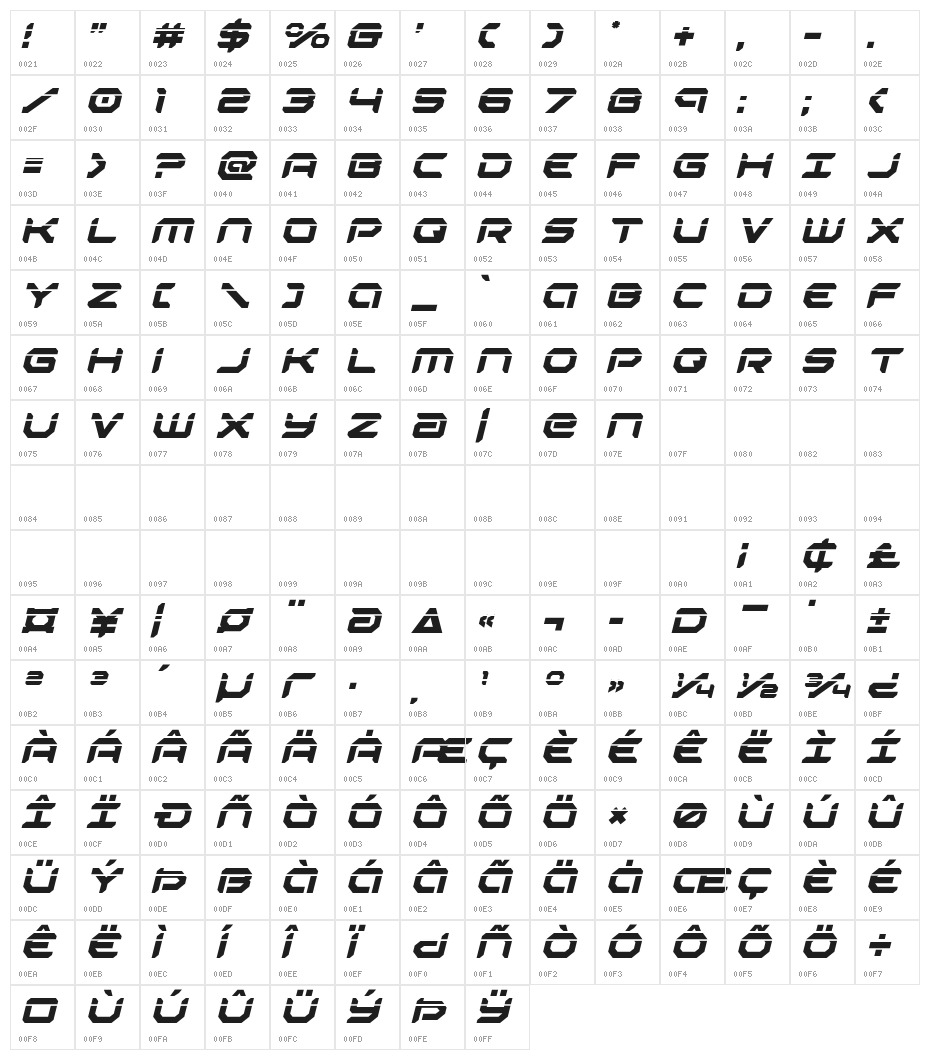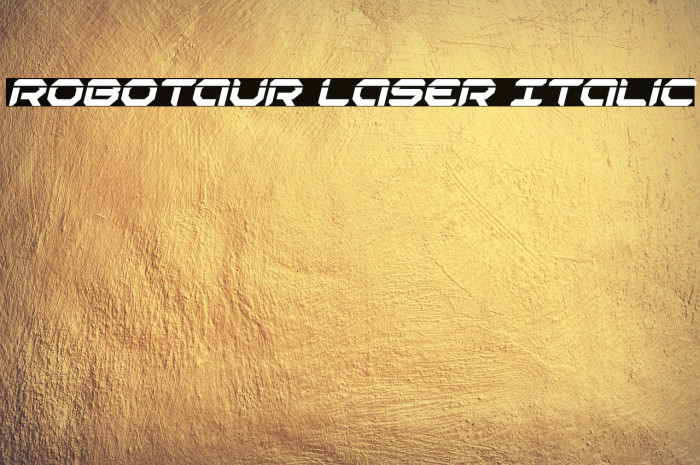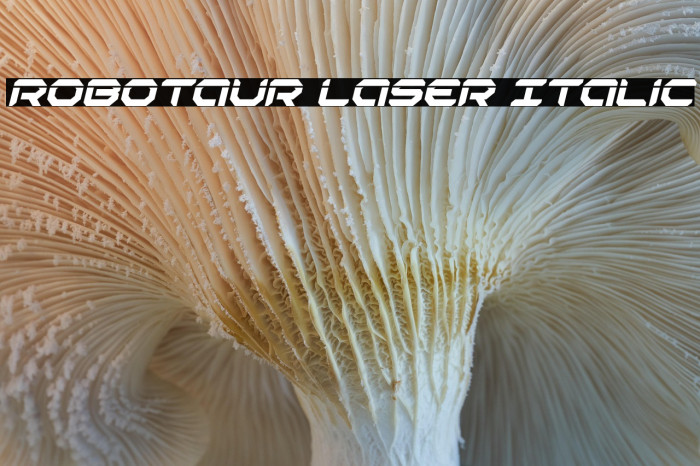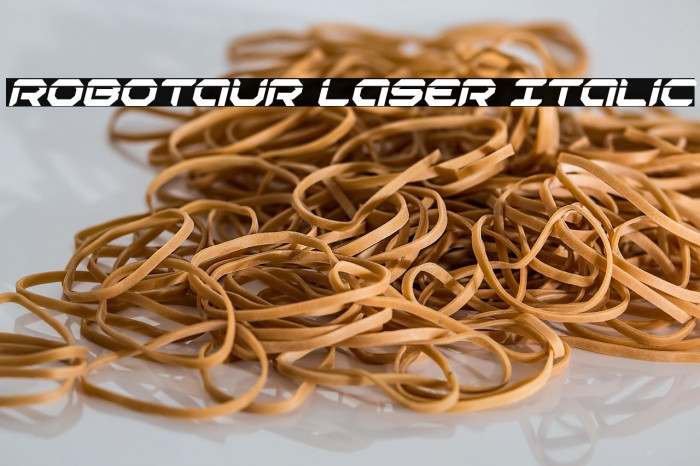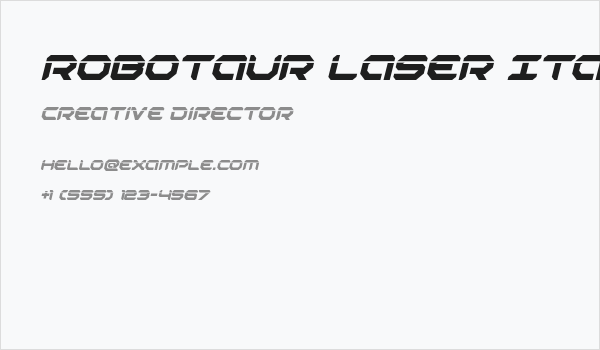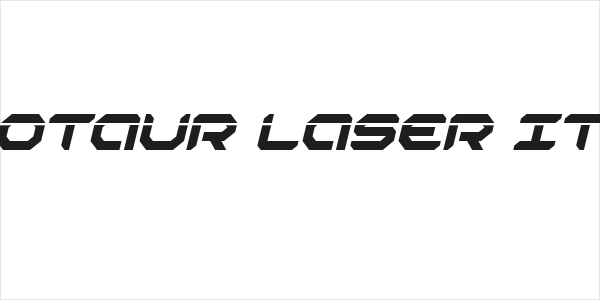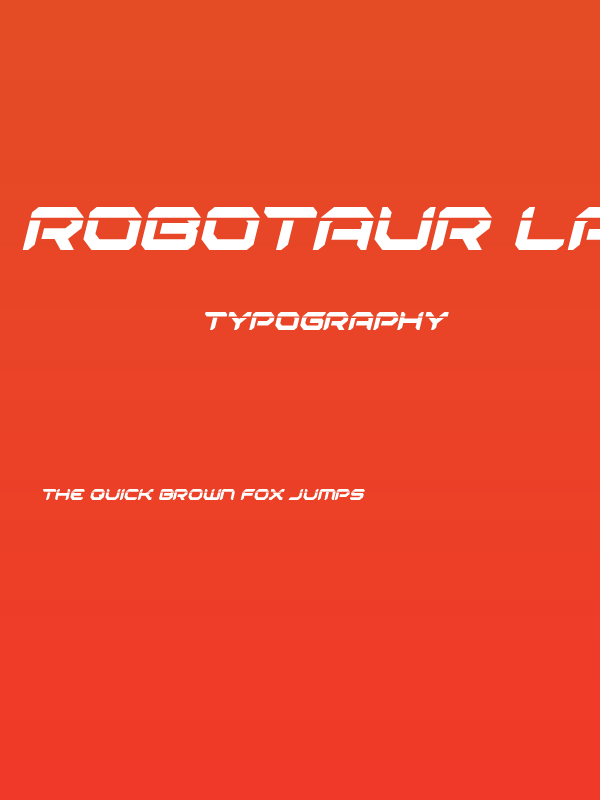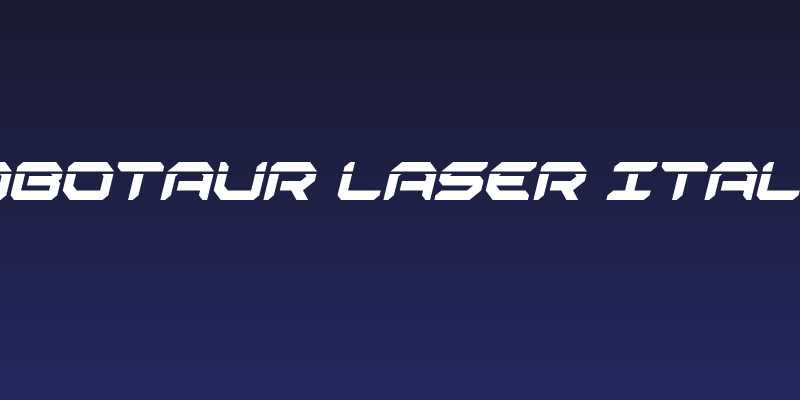
Robotaur Laser Italic Font
Robotaur Laser Italic Description
This font features a futuristic and angular design, characterized by sharp edges and a slanted, italicized form. The letters are bold and geometric, with a consistent thickness throughout, giving it a strong and impactful appearance. The style is reminiscent of digital or sci-fi themes, making it suitable for modern and tech-oriented projects. The characters are tightly spaced, enhancing the compact and cohesive look of the text. Special characters maintain the same angular and bold aesthetic, ensuring uniformity across all glyphs.
| Proposed Projects | Ideal for tech branding, sci-fi movie posters, video game titles, and futuristic-themed designs. |